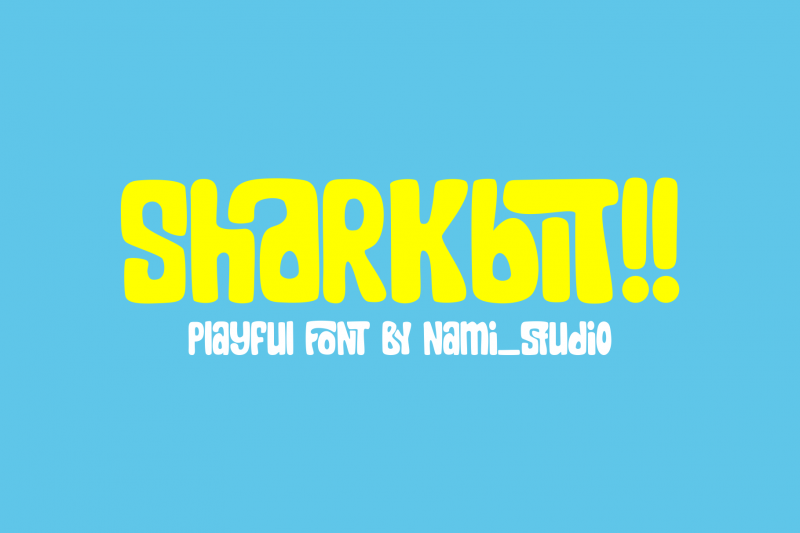
Kids font Sharkbit is a playful and energetic typeface that adds fun to any project. With bold, chunky letters and a quirky design, Sharkbit is a lively choice. Its unique shape and rounded edges give it a friendly look, while the thick strokes make it very readable. Sharkbit brings personality to text, making it ideal for designs needing cheerfulness and excitement.
Additionally, kids font Sharkbit works well across various media, from digital to print. Its bold style is perfect for titles, headlines, and logos, ensuring it captures attention. The fontโs playful design suits both educational and entertainment contexts, making it ideal for childrenโs products and event promotions. Whether in social media graphics, posters, or product packaging, Sharkbit adds fun and friendliness to each project.
Kids Font Sharkbit Ideal Users
Sharkbit is perfect for designers, childrenโs brands, and educators who want a playful touch. For example, companies specializing in toys, kidsโ apparel, or entertainment can use Sharkbit for branding, packaging, and promotions. The fontโs bold, friendly look appeals to young audiences, creating a warm brand image.
Educators and creators of learning materials will also find Sharkbit useful. Its bold and readable design works well for titles and headings in educational content. Sharkbitโs quirky style makes learning materials feel less formal, encouraging kids to engage. Social media managers for childrenโs brands can use this font to create vibrant, eye-catching posts that attract both kids and parents.
Finally, Sharkbit is perfect for personal projects, birthday invitations, and DIY crafts. Its playful, bold design is great for party invites, decorations, or custom gifts, adding extra excitement. Overall, kids font Sharkbit is versatile and full of energy, making it an excellent choice for designs aimed at young audiences. Its memorable style and bold character make it a fantastic addition to projects focused on fun and engagement.